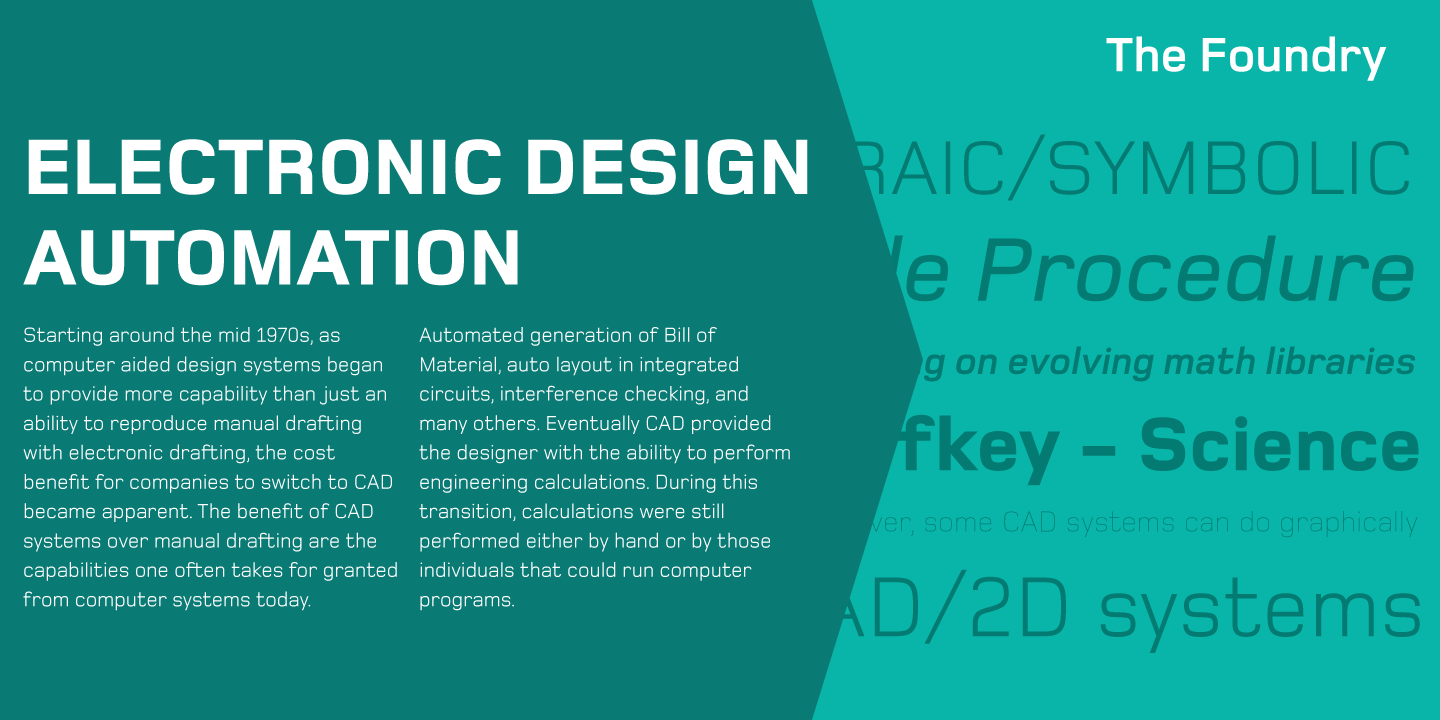
Foundry Monoline Font is perfect for industrial design projects, manufacturing company branding, technical documentation, engineering presentations, architectural blueprints, and precision-focused marketing materials. Its systematic character makes it ideal for metal fabrication companies, industrial equipment manufacturers, engineering firms, construction contractors, and any application requiring consistent typography that conveys industrial precision, manufacturing excellence, and foundry-level craftsmanship.
Foundry Monoline Font is exciting because it embodies the precision and reliability of industrial manufacturing through uniformly weighted letterforms that reflect the consistent quality standards of professional foundries. Its monoline construction and systematic proportions mirror the exacting specifications required in precision manufacturing, making it perfect for organizations committed to industrial excellence and quality control. The font's foundry character instantly communicates expertise in industrial processes and manufacturing precision.
Foundry Monoline Font family includes precision-engineered weight variations typically featuring Light, Regular, Medium, and Bold options with consistent monoline styling throughout. The family often incorporates technical symbols, industrial characters, and engineering marks designed for manufacturing applications, providing designers with comprehensive tools for creating authentic, industry-focused typographic solutions.
When selecting industrial typography solutions, Foundry Monoline Font Free Download represents an exceptional choice for manufacturing and engineering projects. This precise typeface brings instant industrial credibility to any design, making it invaluable for manufacturing companies, engineering consultancies, and industrial equipment brands. Whether you're developing technical documentation, creating industrial marketing materials, or designing manufacturing process communications, Foundry Monoline Font provides the precision consistency and industrial authenticity essential for establishing trust in today's quality-focused manufacturing marketplace.